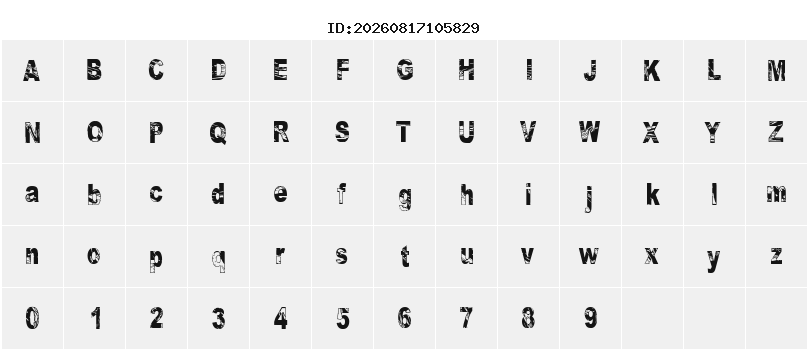
• Font Name: Some Distant Memory Dark
• Full Font Name: Some Distant Memory Dark
About Some Distant Memory Dark.ttf
Some Distant Memory Dark.ttf is a modern, elegant sans-serif font designed for ultimate readability and visual harmony. Perfect for branding, headlines, web design, and print materials.